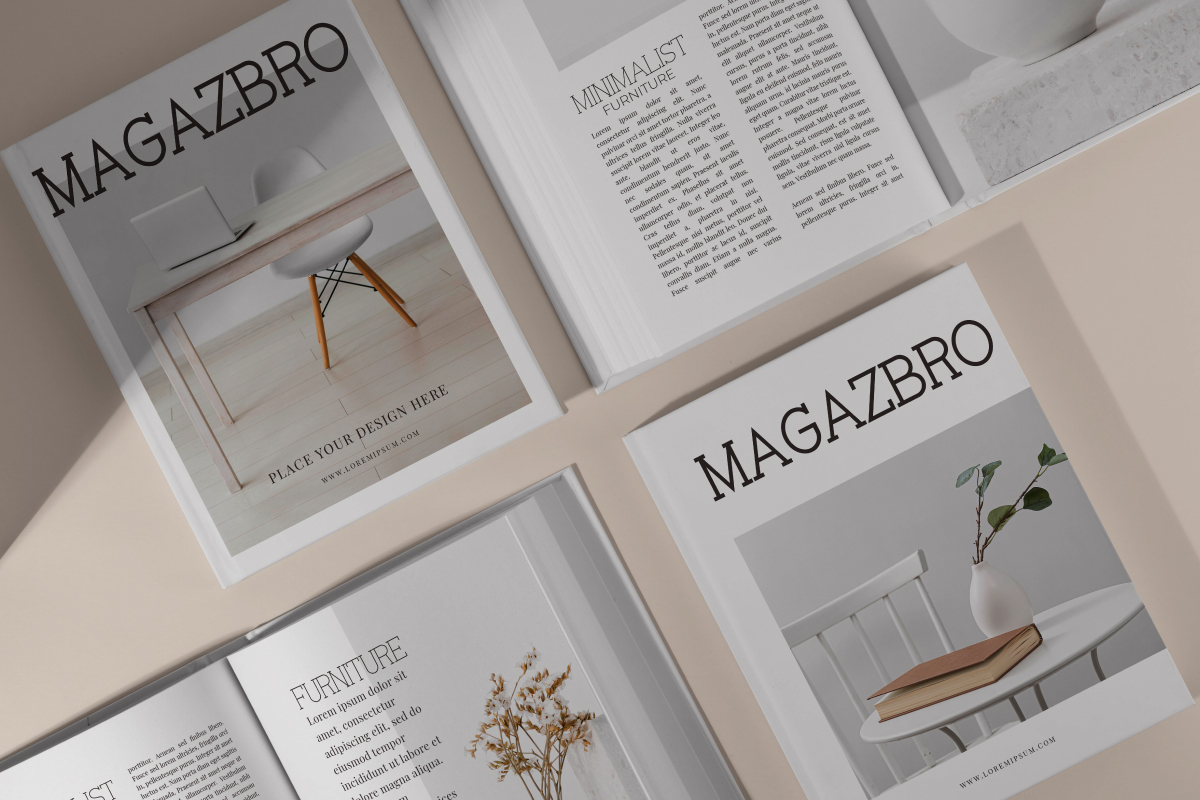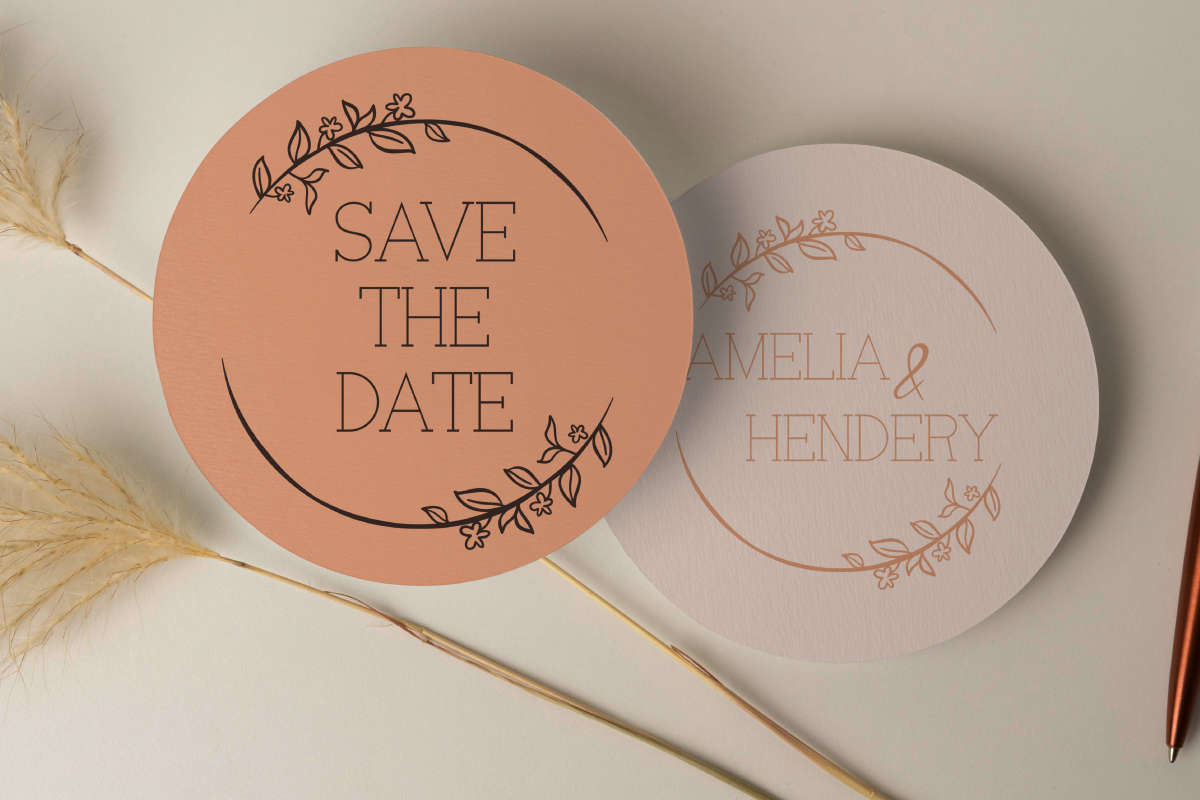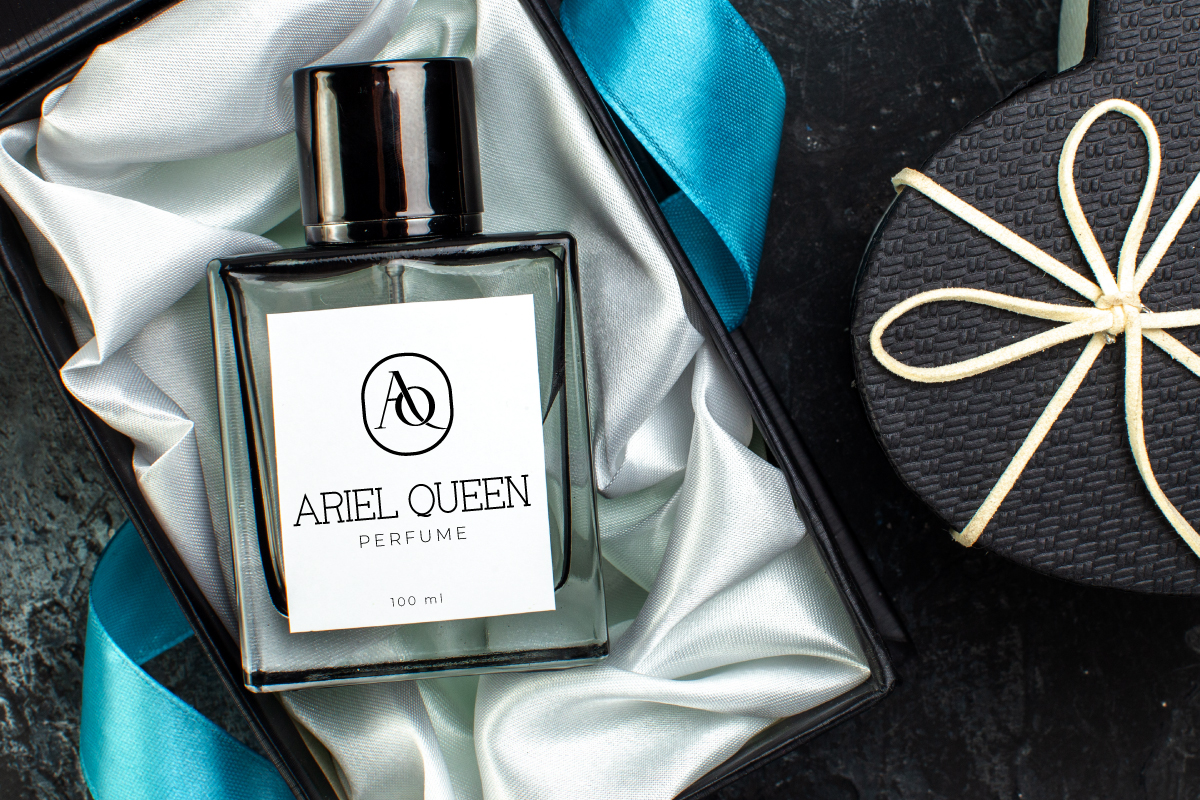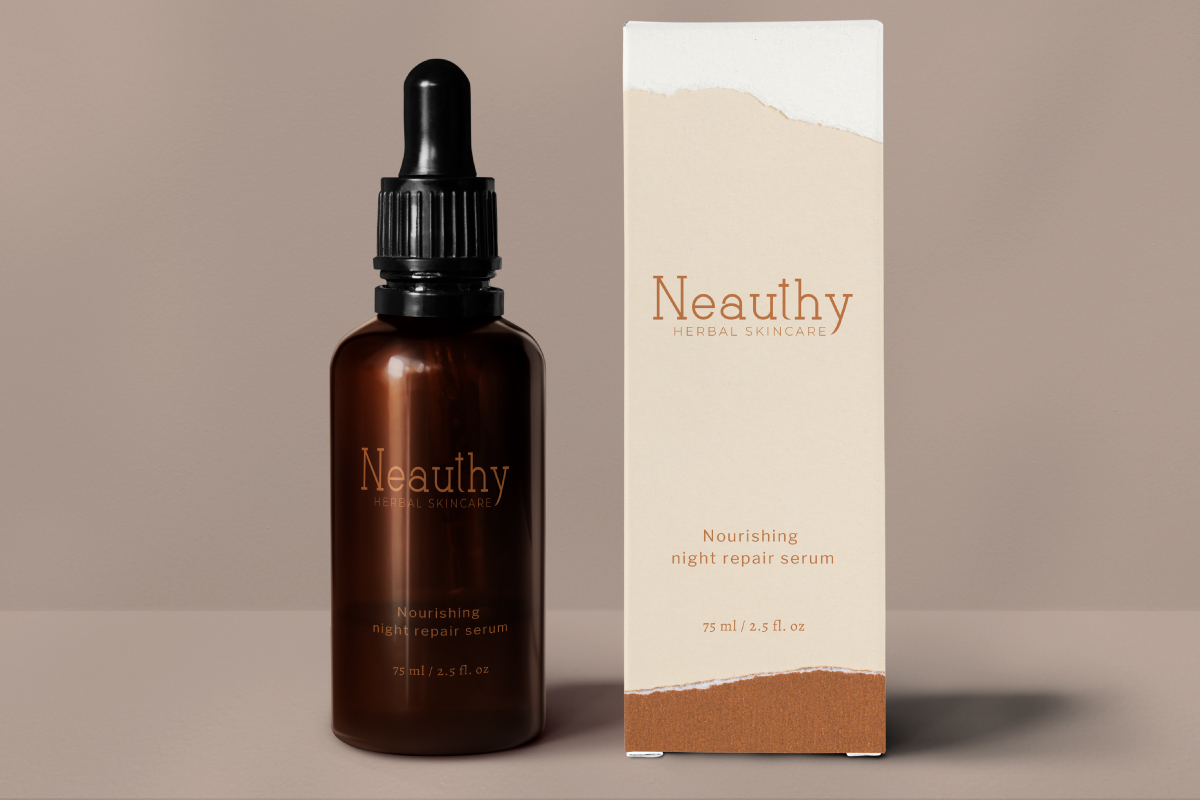
Victorela Font
Victorela Serif Font
This is great for any your projects including : brandings, advertising, magazine, signage, invitation, stationery, social media posts, label, or and any projects that need unique minimal style. The industries for this font is Fintech, Startup, Automotive, Apps, Cosmetic, Travel, Technology, Game, Magazine, Music, Sports etc